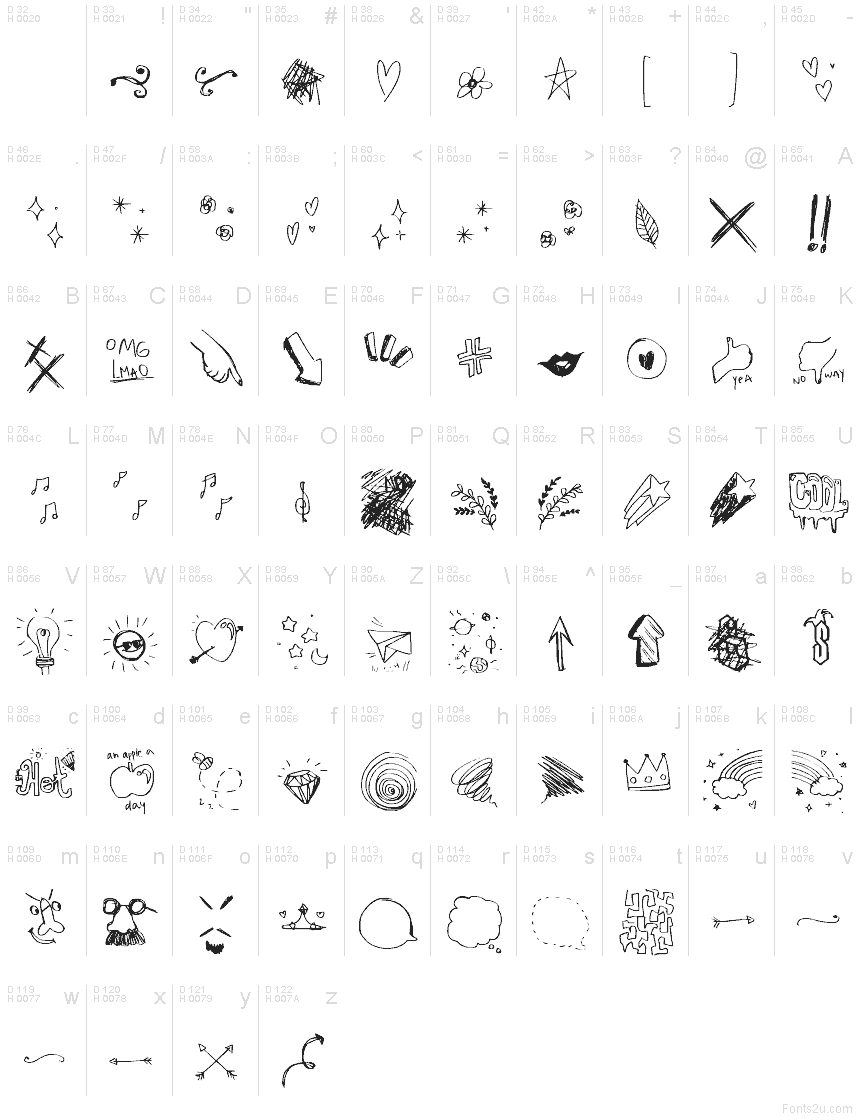
Dinamo Dingbats Regular
Dinamo Dingbats font by Arachnida is a free dingbats typeface. Its marks feel hand-scratched and kinetic-whiplash swashes, thorny silhouettes, spirals, and speckled bursts that add motion and grit in a snap. The set lands with an inky, zine-like energy, the kind that instantly roughens up clean layouts without heavy illustration work.
Using Dinamo Dingbats, you can punctuate gig posters, skate or streetwear branding, DIY packaging, zines, social story frames, stickers, and event flyers with fast, expressive texture. The rhythm is jittery yet balanced, so elements cluster well as accents or scale up as bold stamps. Pair this free font’s icons with a blunt grotesque or condensed sans to keep the text legible while the symbols do the shouting.
Hand-drawn dingbats.